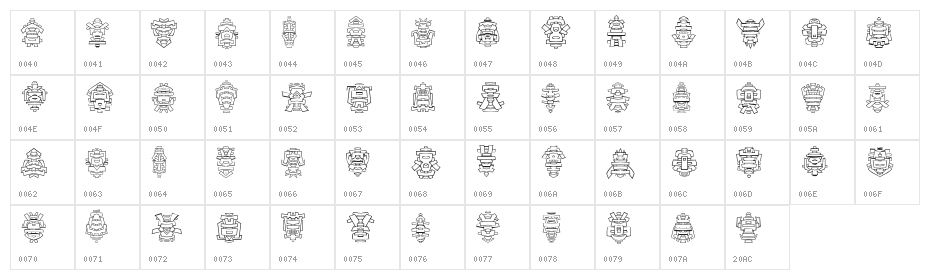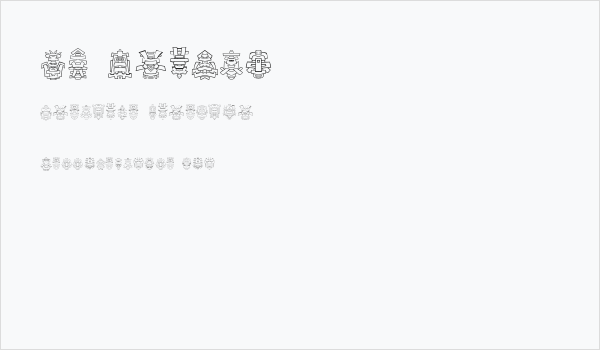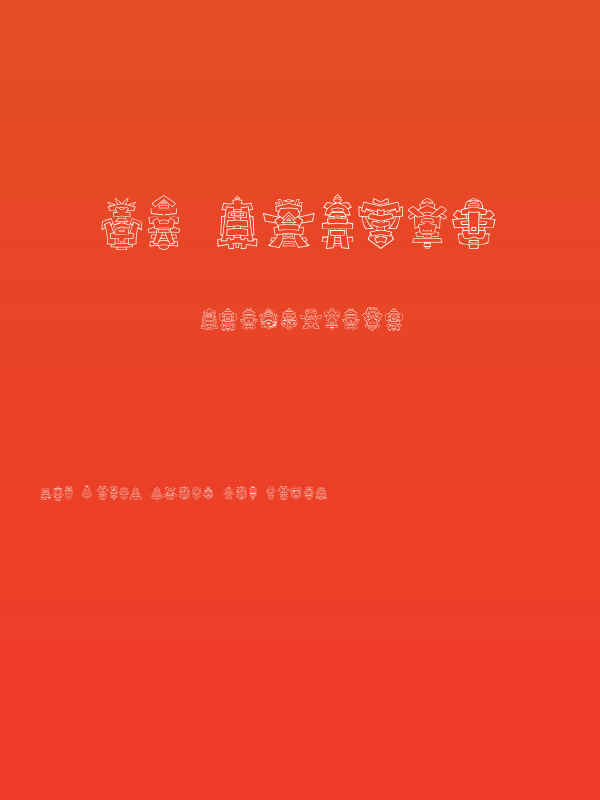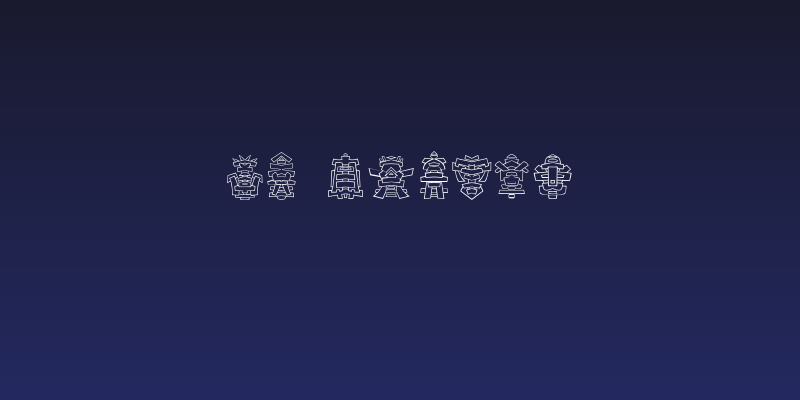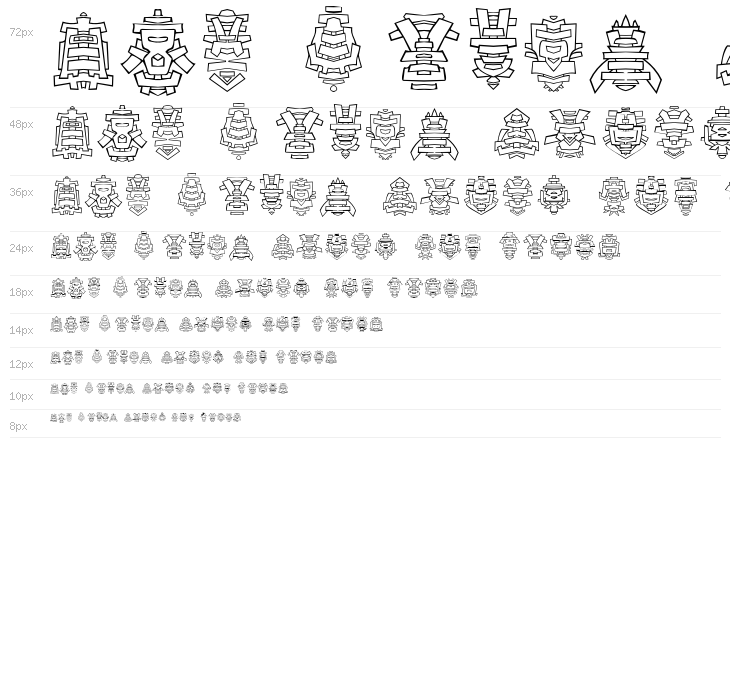
FE-Tribal Font
FE-Tribal Description
This font features a highly decorative and intricate design, reminiscent of tribal art and geometric patterns. Each character is composed of complex shapes and lines, creating a unique and bold visual impact. The style is highly ornamental, with each letter resembling a small piece of art. The characters are uniform in height but vary in width, adding to the dynamic and artistic feel. This font is not suitable for body text due to its complexity but makes a strong statement in headlines or artistic projects.
| Use Case | Headlines, Logos, Artistic projects |
| Proposed Projects | Ideal for artistic projects, cultural event posters, unique branding, and decorative headlines. |